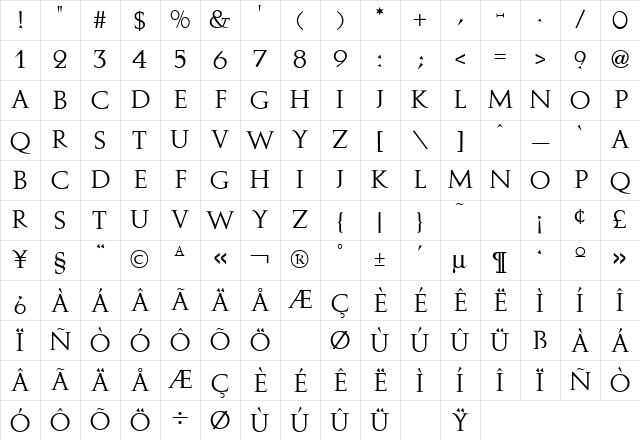
Aurea Regular Free Font
Aurea Regular
Aurea Family
Aurea Regular
Design Context for Aurea
Aurea is a composed and adaptable typeface that performs quietly and consistently across a wide range of design contexts.